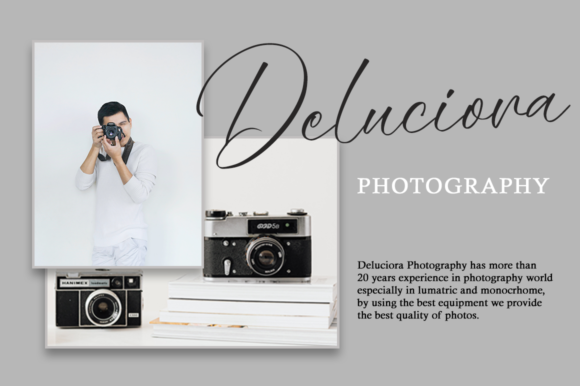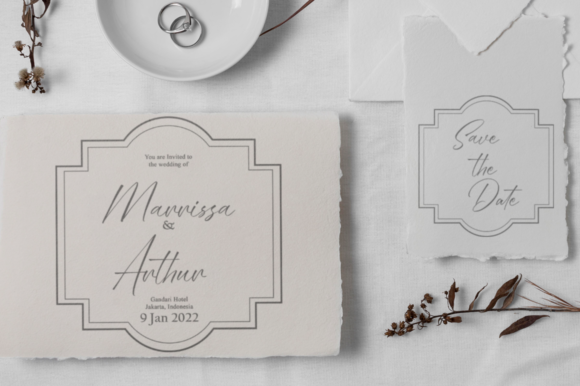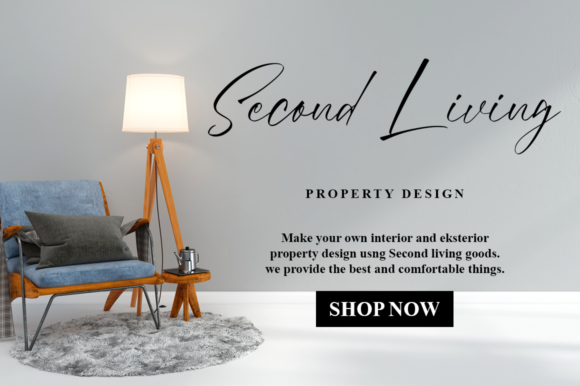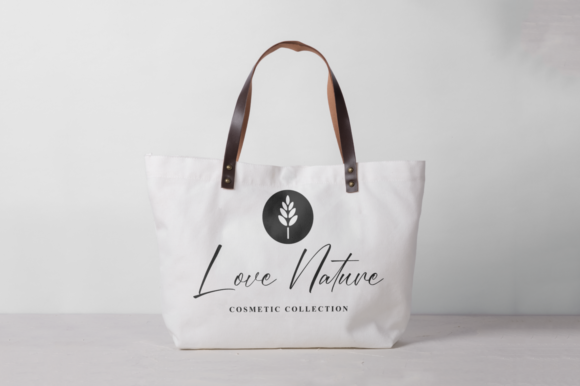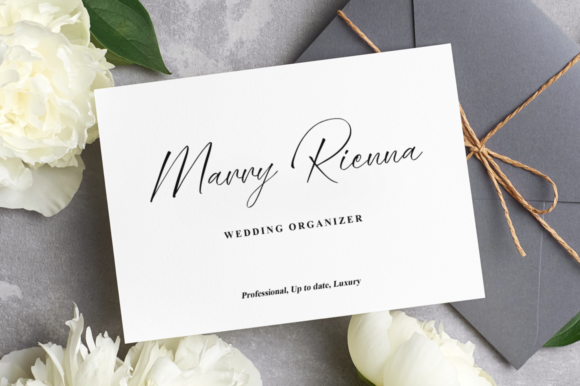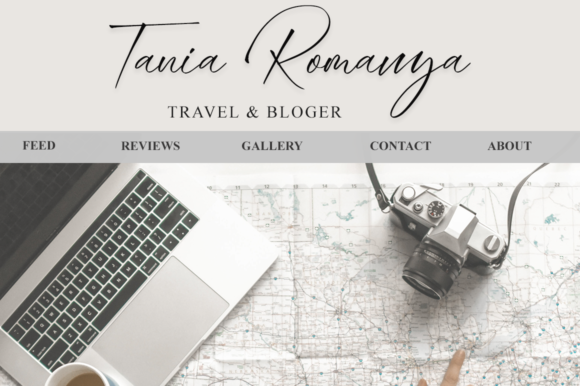
The Elegant Brigatta Font: A Designer’s Delight
I’ll never forget the time I was working on a project for a high-end fashion brand, and I was struggling to find the perfect font to match their luxurious aesthetic. The client was looking for something elegant, sophisticated, and eye-catching. I scoured the internet, tried out countless fonts, but nothing seemed quite right. That was until I stumbled upon the Brigatta font. ✨ It was love at first sight! The delicate script, the flowing swashes, and the overall sense of refinement it exuded – it was exactly what I needed to elevate my design.
An Honest Review of Brigatta Font
What I Love About Brigatta Font
- ✨ Delicate and elegant design: Brigatta font is perfect for designs that require a touch of sophistication and refinement.
- ✅ PUA encoded: This means that accessing all glyphs and swashes is a breeze, making it easy to customize and get creative with your designs.
- 🎨 Versatile: Brigatta font can be used for a wide range of projects, from fashion branding to wedding invitations and more.
While Brigatta font is an excellent choice for many designs, there are a few things to keep in mind: 🤔
- ⚠️ Legibility at small sizes: As with many script fonts, Brigatta may not be the best choice for body text or small font sizes. It’s best used for headlines, titles, or other display text.
- ⚠️ Pairing with other fonts: As with any font, it’s essential to choose a complementary font to pair with Brigatta. Some fonts may clash or compete with its elegant style.
The Backstory of Brigatta Font
Brigatta font was designed by a team of skilled typographers who wanted to create a font that exuded elegance and refinement. The font was inspired by traditional calligraphy and handwriting, with a modern twist. The designers aimed to create a font that would be perfect for designs that require a touch of sophistication and luxury. 💫
Q: What is PUA encoding, and how does it benefit me?
A: PUA (Private Use Area) encoding allows you to access all glyphs and swashes in the font, making it easy to customize and get creative with your designs.
Q: Is Brigatta font suitable for body text?
A: While Brigatta font is beautiful, it’s not ideal for body text. It’s best used for headlines, titles, or other display text where you want to make a statement.